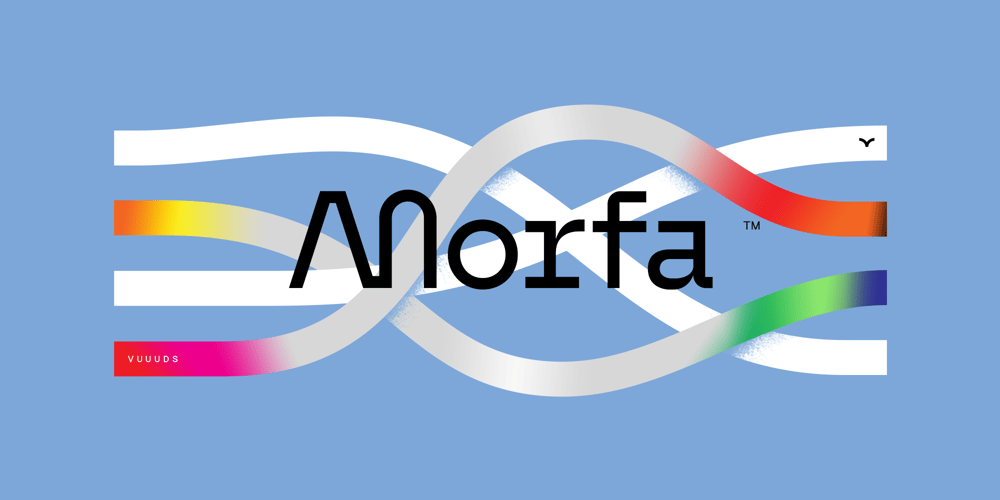
Morfa Font Family was designed by Agung Syaifudin and published by vuuuds. Morfa contains 1 styles and family package options. Introducing Morfa Font!Morfa is modern experimental sans serif font, every single letters have been uniquely crafted.This font including beautiful alternate glyph. You can access the alternate glyph via Font Book (Mac user) or Windows Character Map (Windows user), I’ve been put the link tutorial inside the zip file.Foreign languages support: ÀÁÂÃÄÅÆÇÈÉÊËÌÍÎÏÐÑÒÓÔÕÖØÙÚÛÜÝàáâãäåæçèéêëìíîïðñòóôõöøùúûüýÿ߀£¥ŒŠŸ¢œšž©®™Thanks for looking.—instagram.com/vuuuds.studio